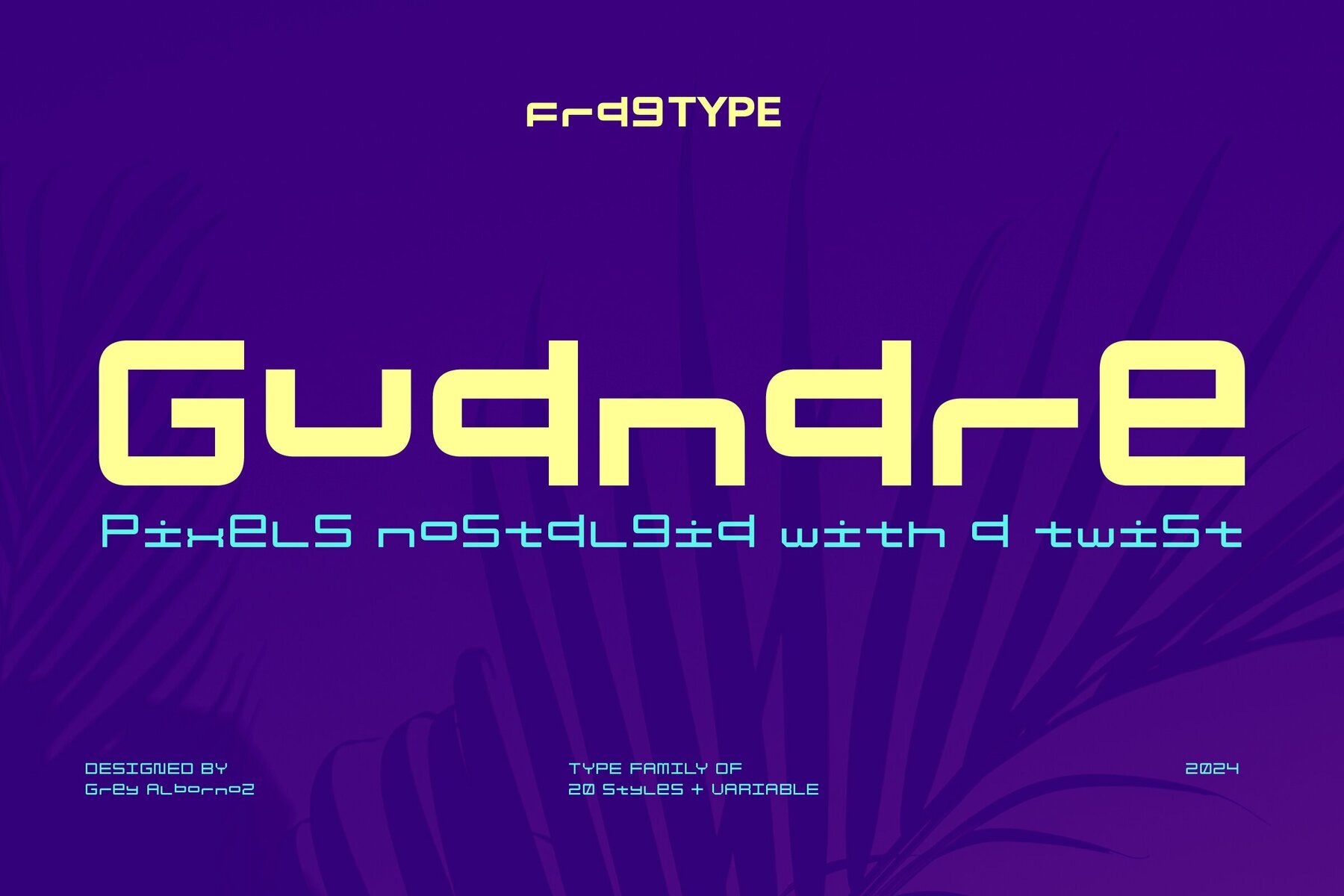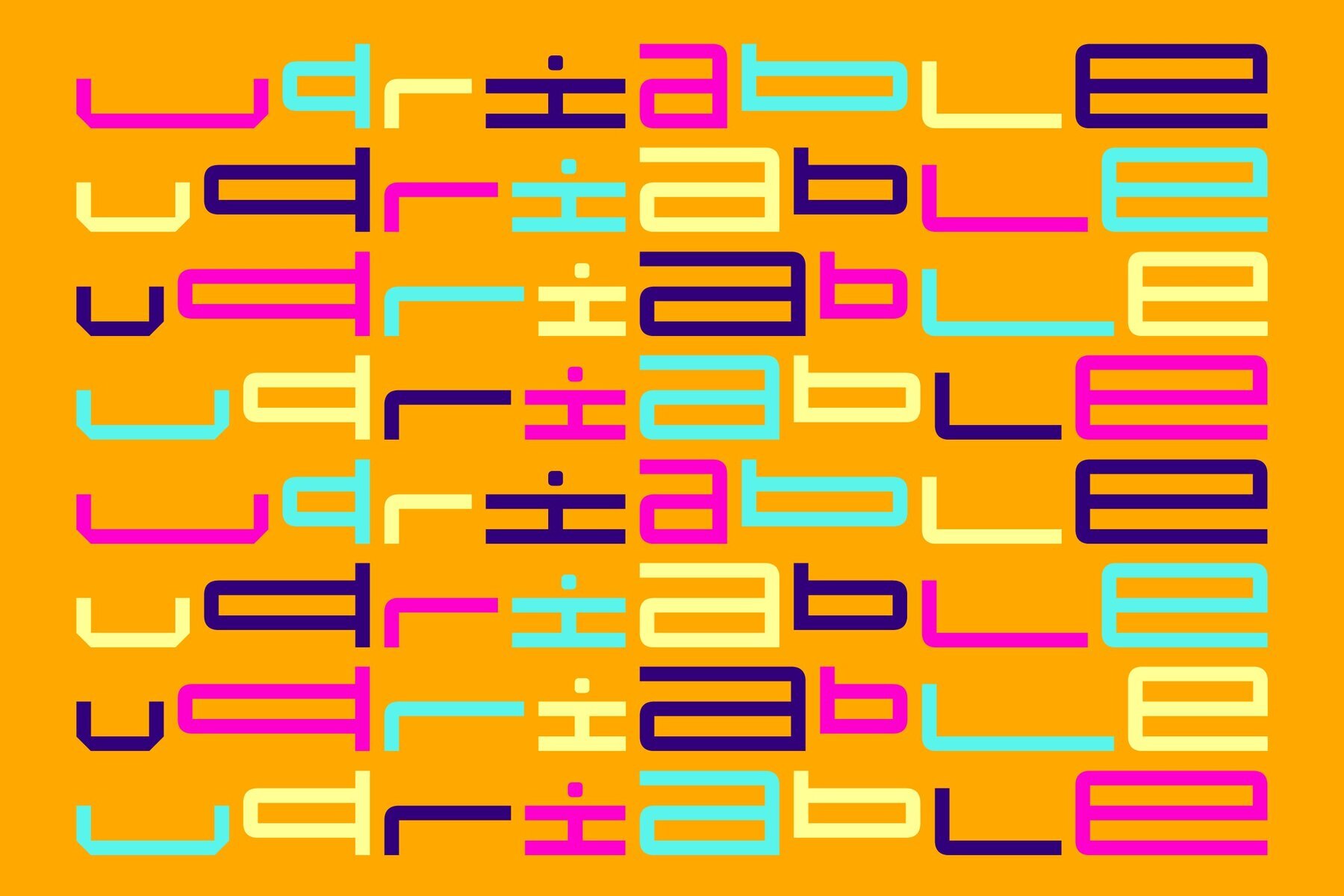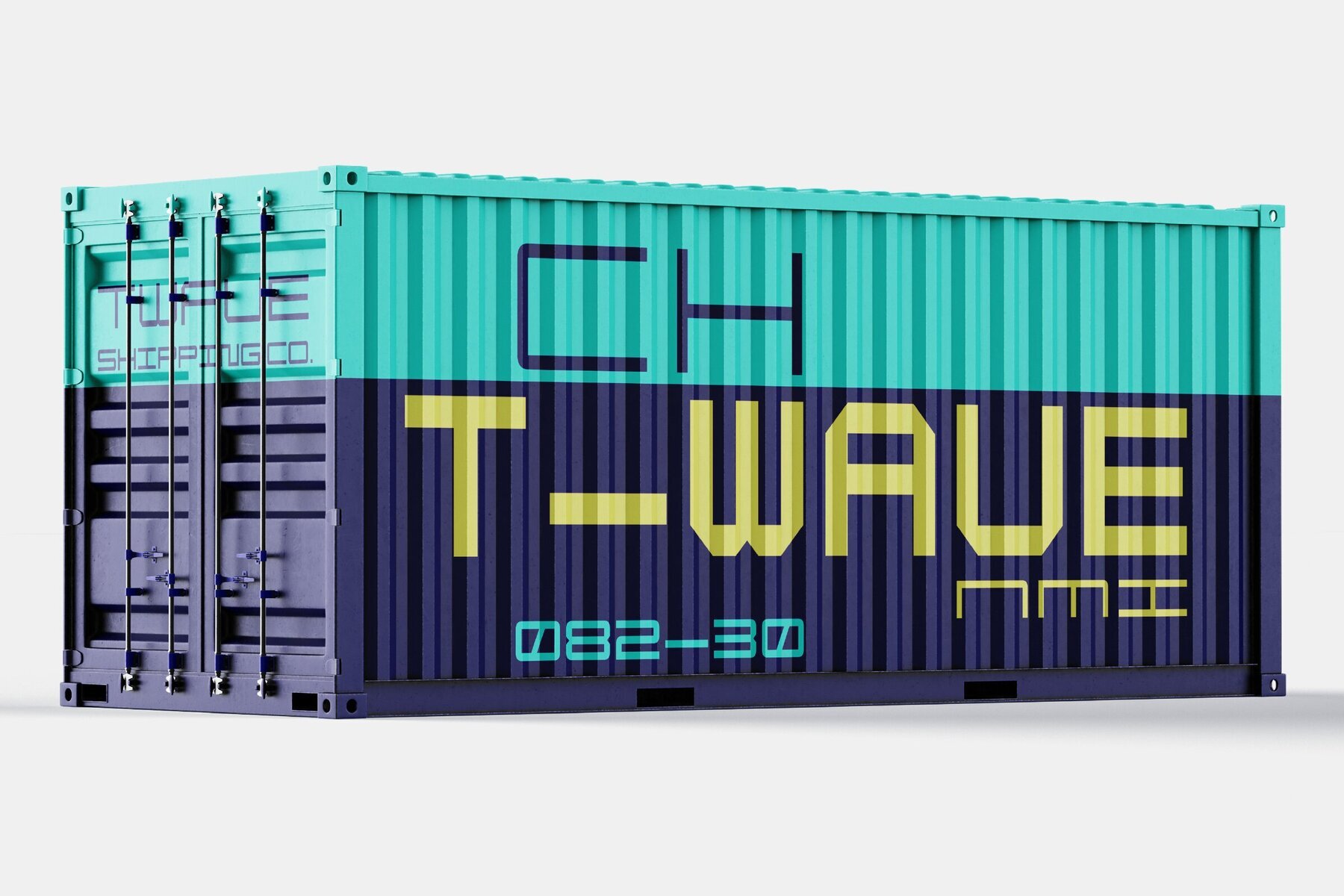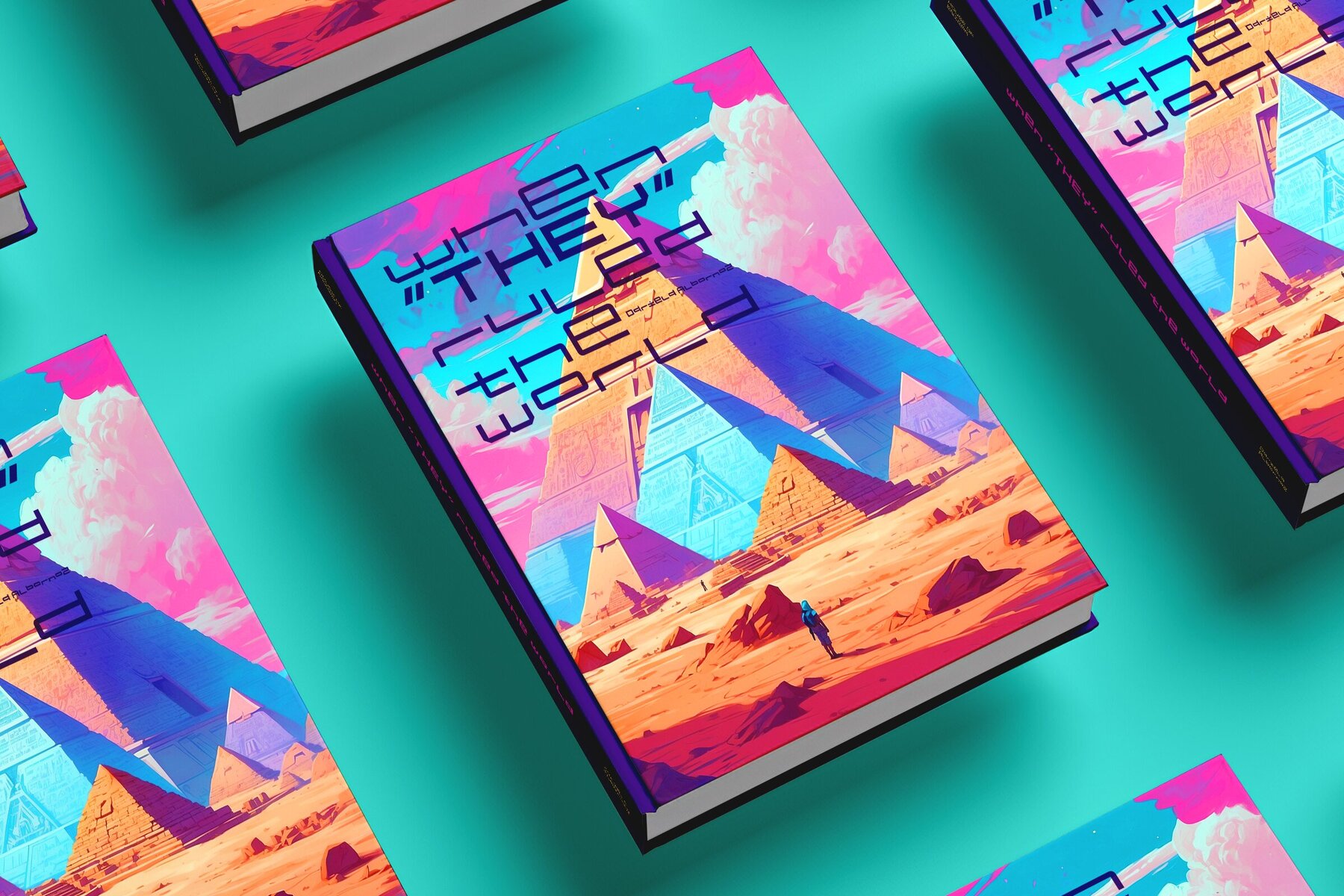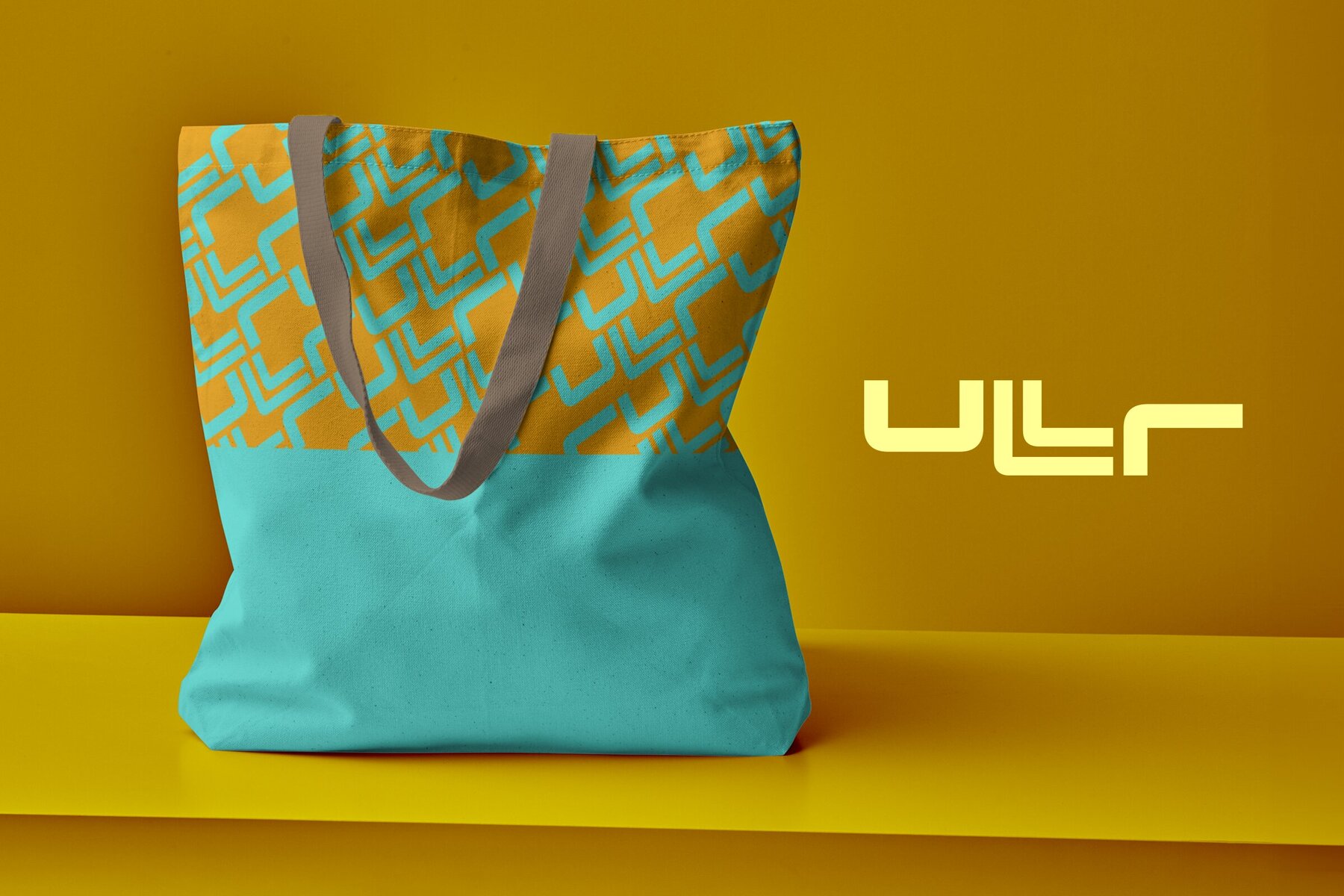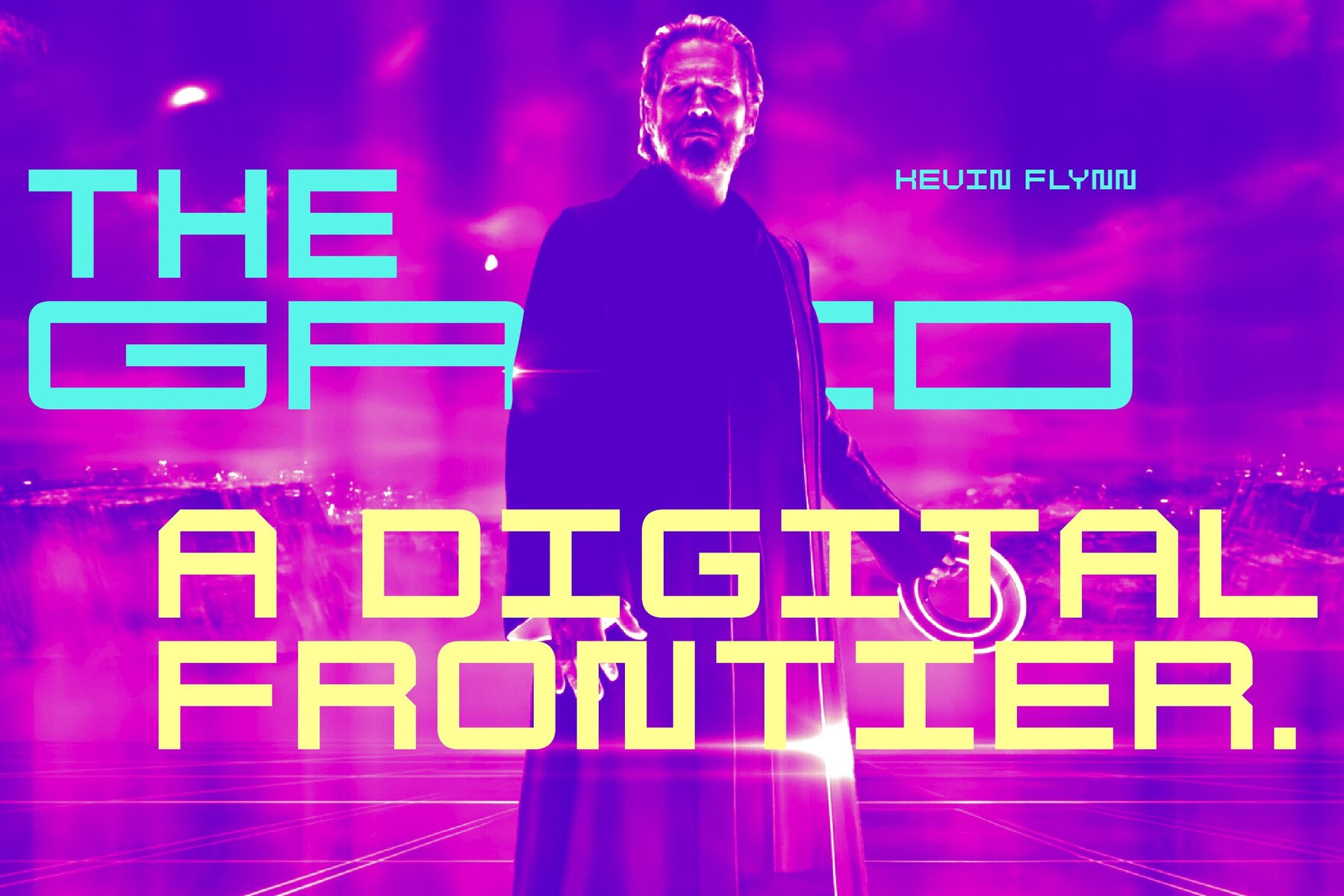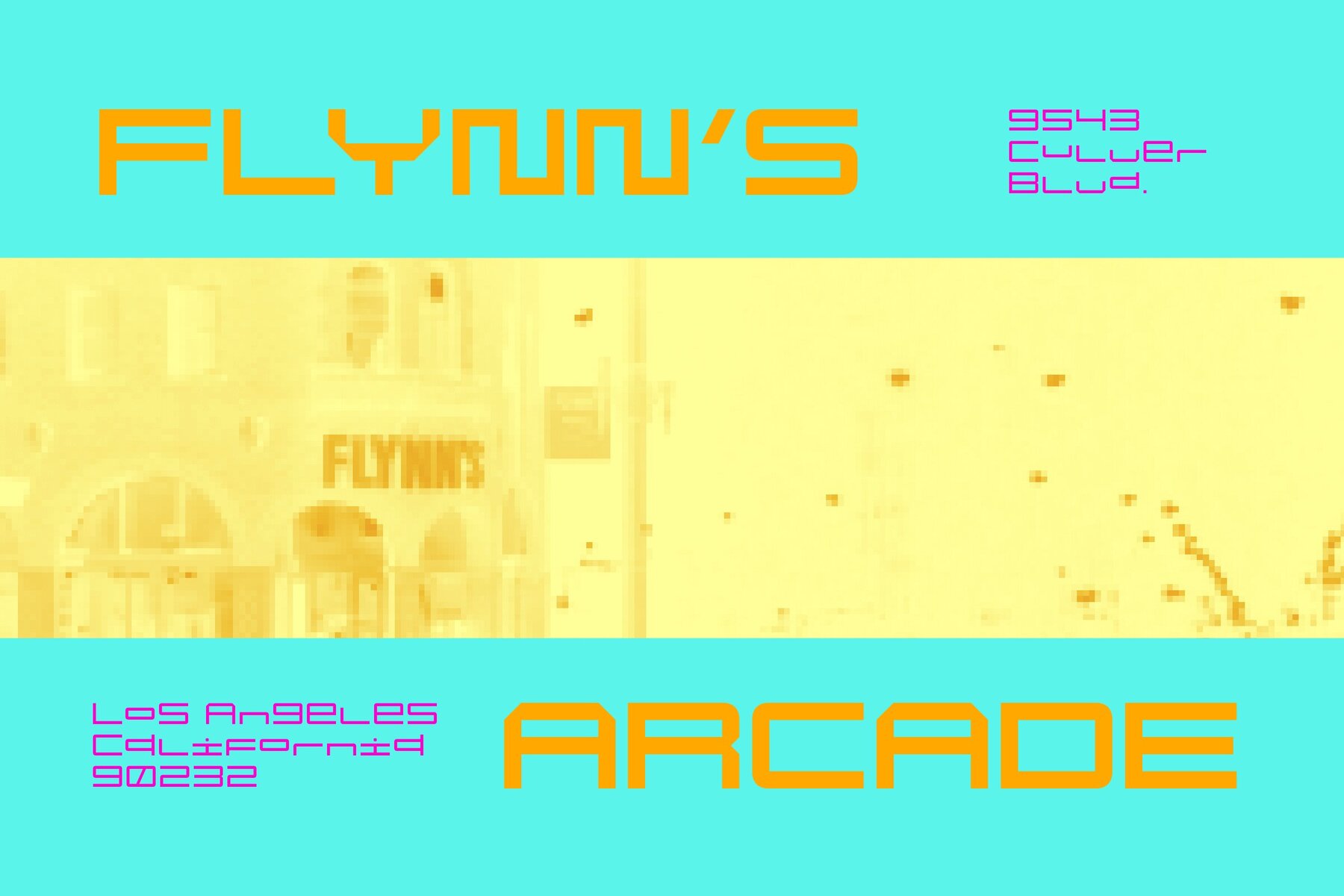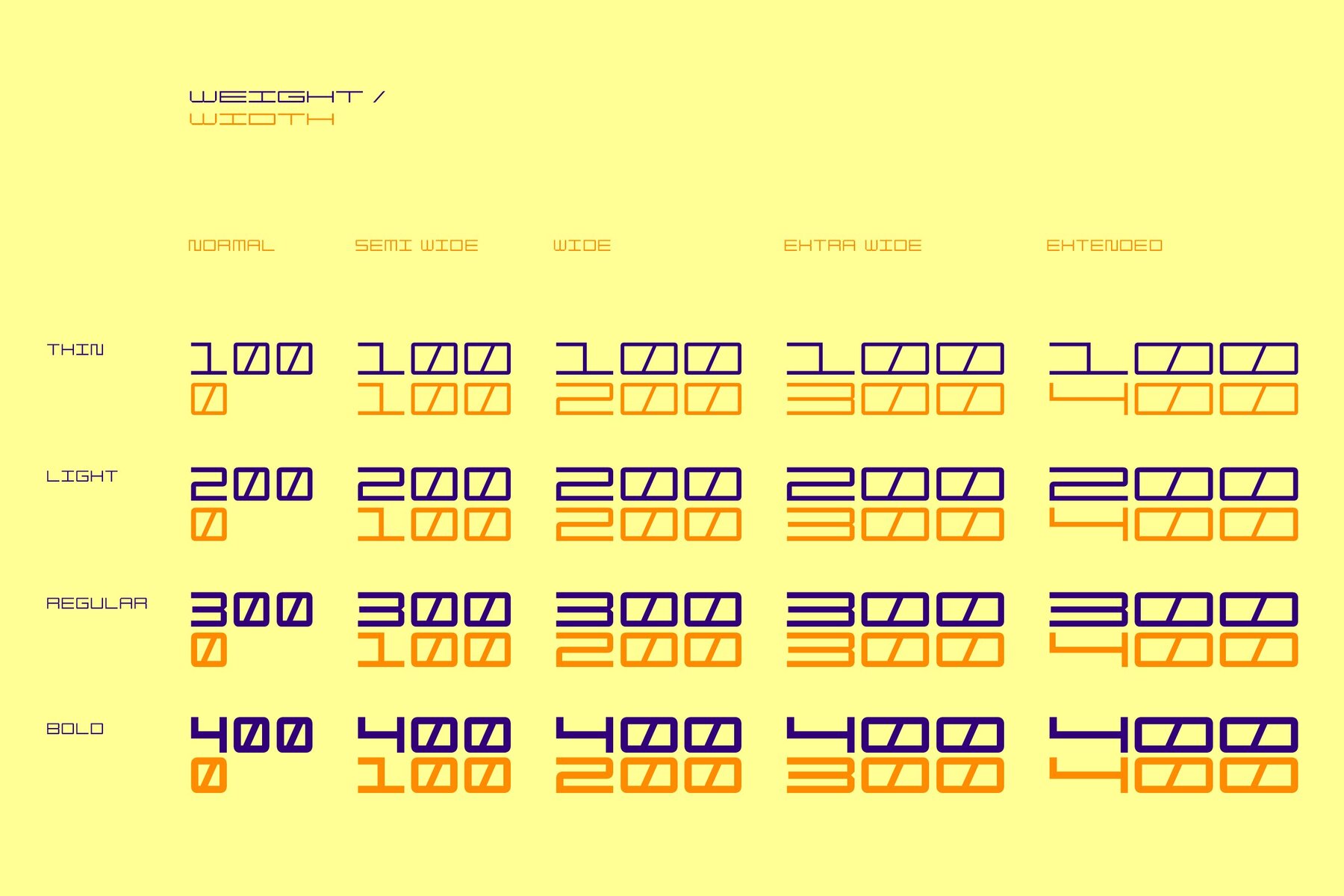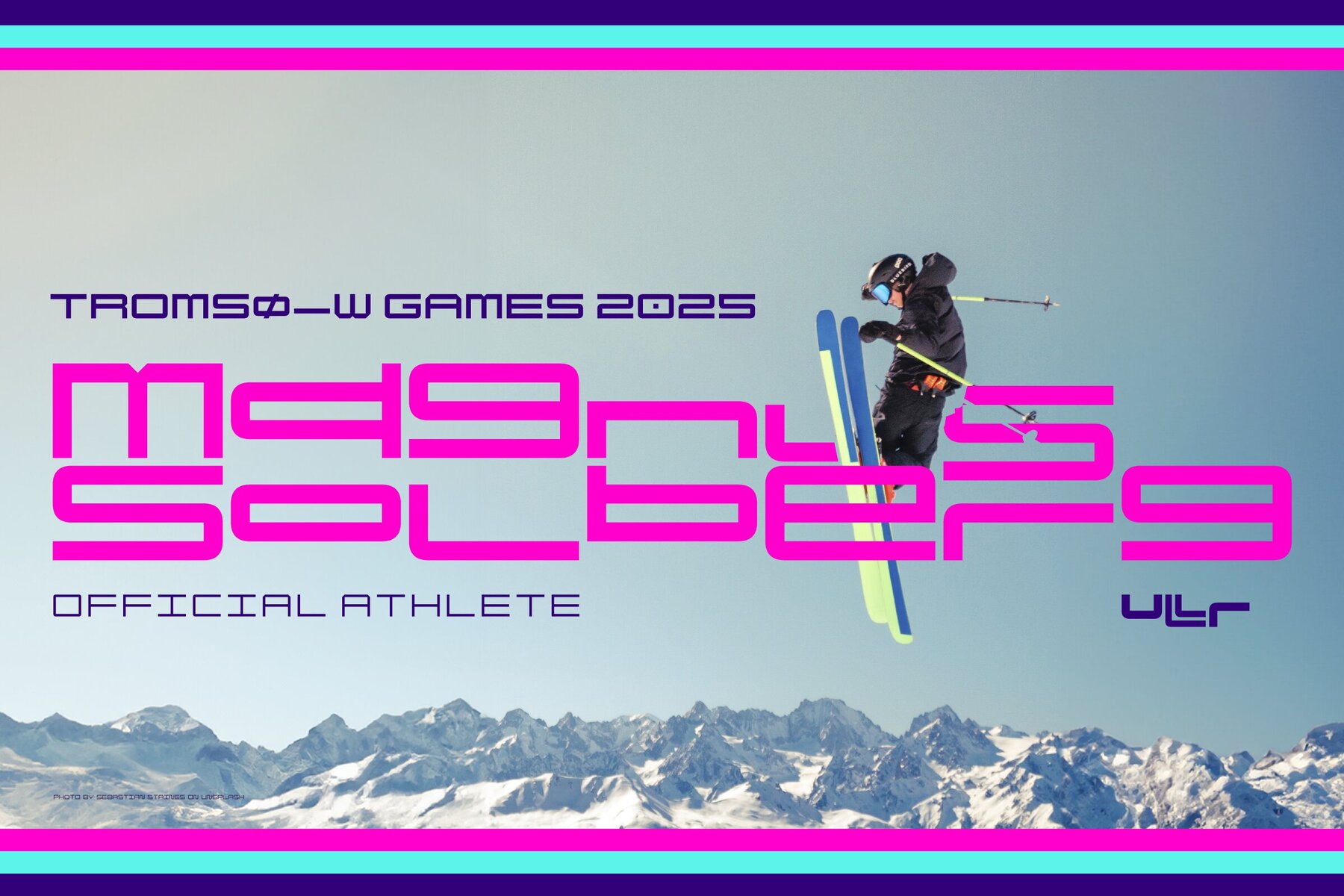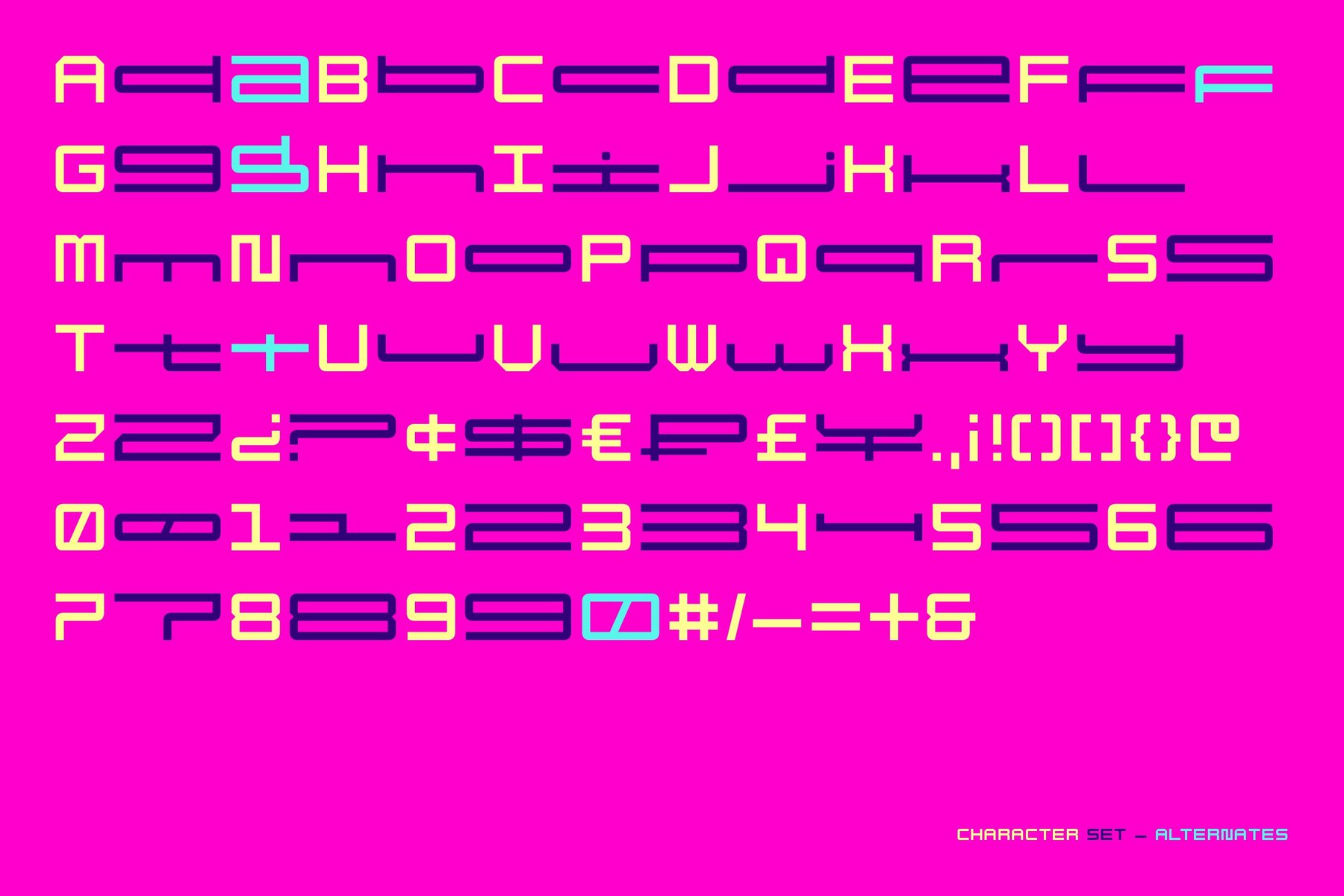
Guanare Font
Guanare started as a drawing on a piece of paper, can I draw an "a" like this? From that question began a whole process of development that was based on the mixture of different things to reach this result. We knew that the font had to be very modular and basic, we knew that we didn't want to have a fixed baseline and we knew that the lowercase letters were going to be the protagonists of the alphabet. With that in mind and while we were developing Guanare we were adding more features like weights, widths, language support and alternate characters. The result is a font that reflects very well our mixed idiosyncrasy where every idea has a place.